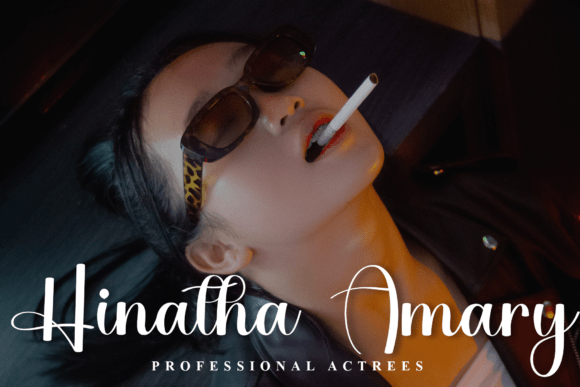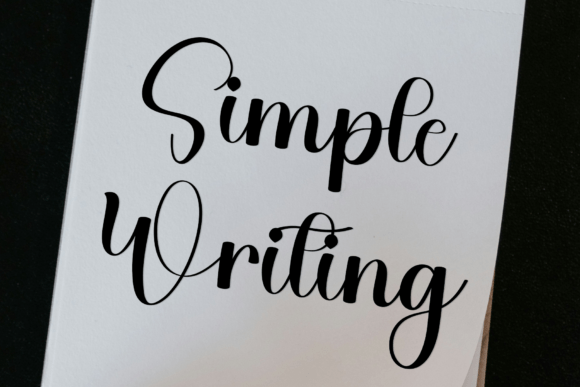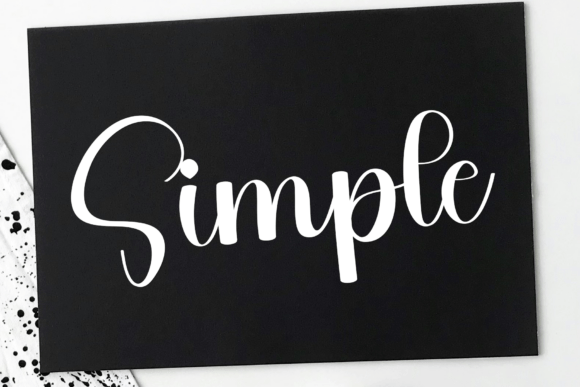
Introduction to Photograph Signature Font
Remember the rush of excitement when you’re brainstorming ideas for a new creative project, and the perfect font suddenly pops into your mind? For designers, finding the right font can make all the difference between a good design and a great one. One font that’s been making waves in the design community is the Photograph Signature Font – a charming, hand-drawn font that exudes warmth and friendliness.
With its round, playful strokes, the Photograph Signature Font creates a relaxed and approachable feel that’s perfect for personal projects, invitations, and social media graphics. Its high-quality design is equipped with standard PUA Encoded glyphs, making it compatible with various application engines like Adobe Photoshop, Corel, and Adobe Illustrator. Whether you’re looking for a free download or a valuable design resource, the Photograph Signature Font is sure to add a unique touch to your next creative project.
Key Features of Photograph Signature Font
- Unique Hand-Drawn Style: The Photograph Signature Font features a distinctive, hand-drawn aesthetic that adds a personal touch to any creative project.
- High-Quality Design: This font is designed with high-resolution images in mind, ensuring a crisp and clear appearance even when used in large formats.
- Perfect for Creative Projects: The Photograph Signature Font is ideal for use in creative projects, such as photography, art, and design, where a unique and personal touch is desired.
Honest Review: Photograph Signature Font
I recently stumbled upon the Photograph Signature Font, and I must say it’s been a great addition to my design resources. The font is perfect for creative projects where you want to add a touch of elegance and sophistication. ✨
- High Quality – The quality of the font is top-notch, making it perfect for printing or digital use.
- ⚠️ Limited Character Set – The font only includes a limited character set, which might be a problem for designers who need to use special characters.
- ⚠️ Not Ideal for Body Text – Due to its elegant design, the font might not be the best choice for body text, but it’s perfect for headings and titles.
Overall, I’m very impressed with the Photograph Signature Font. It’s a great design resource that’s perfect for creative projects. With its high-quality design and transparent background, it’s a must-have for any designer’s collection. ✨
What is Photograph Signature Font?
Photograph Signature Font is a unique design resource that can add a personal touch to your creative project. It’s a high-quality font that can be used to create transparent backgrounds, making it perfect for graphic design.
Photograph Signature Font is commonly used in:
- Graphic design projects.
- Marketing materials (brochures, flyers, business cards).